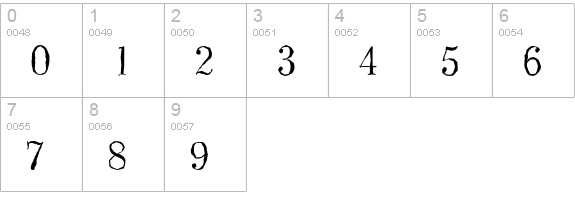
WichitaAntique-Light-Regular is a refined, elegant variant in the WichitaAntique typeface family \xE2\x80\x94 well suited to elegant body text, refined sub-headings, and luxury branding.
WichitaAntique-Light-Regular is a timeless and elegant font that exudes a sense of nostalgia and sophistication. Its delicate serifs and intricate details make it perfect for adding a touch of vintage charm to any project. This font is versatile and can be used for a variety of design purposes, from invitations to branding to signage. One of the best things about WichitaAntique-Light-Regular is that it is available for free download at FontsMarket.com. This means that you can easily access and use this beautiful font without any cost. Whether you're a professional designer or a hobbyist looking to add a special touch to your creations, WichitaAntique-Light-Regular is a great choice that won't break the bank. Don't miss out on the opportunity to enhance your designs with the classic beauty of WichitaAntique-Light-Regular. Download it for free today and let your creativity shine!